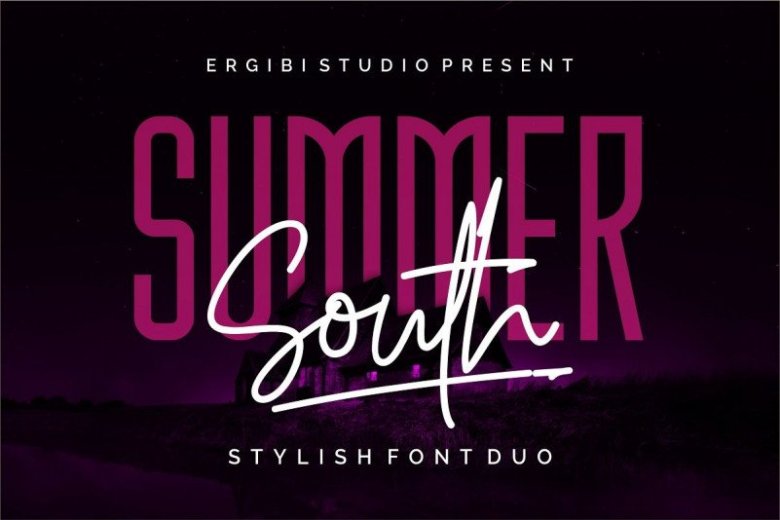
Summer South Font Duo
Summer South Font Duo – Free Demo is a powerful feminine font duo that includes a signature script and a gorgeous sans – already matched up and ready to be used together for your next design!
A ultra condensed font duo. It comes with an elegant and retro style which is perfect to make any design stand out!